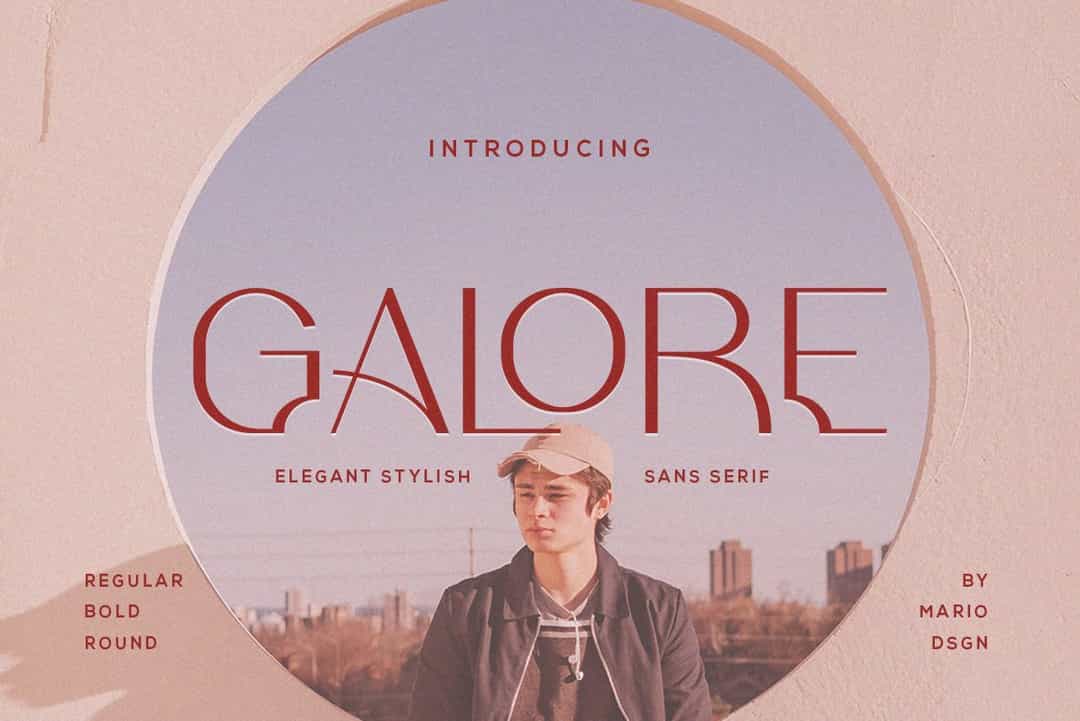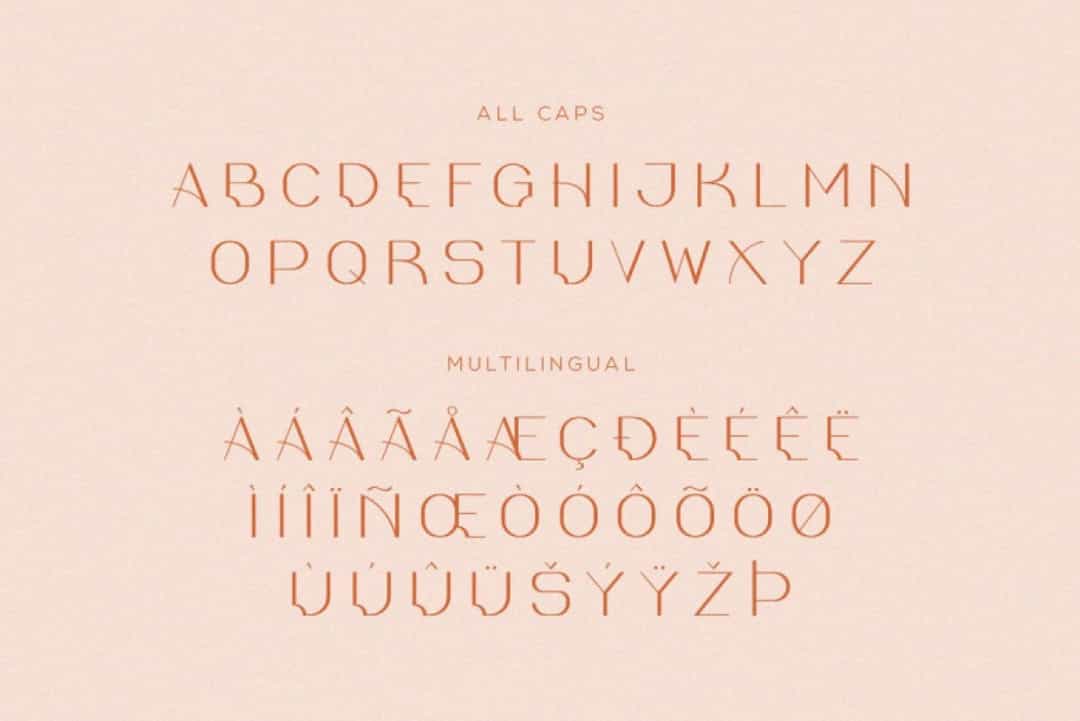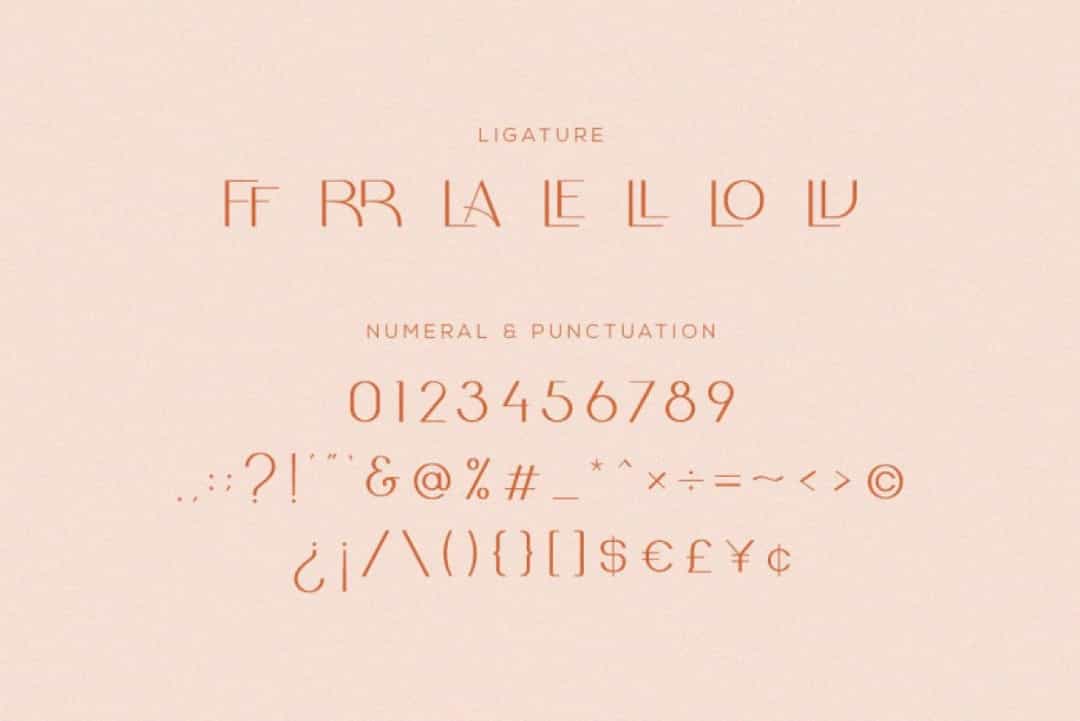
Galore is a modern, elegant, sans serif font perfect for use across various designs. With its romantic feel it will add romance to your project and can be used as badges, insignia or headlines in packaging designs, posters, t-shirt, apparel items, greeting cards or greeting cards.